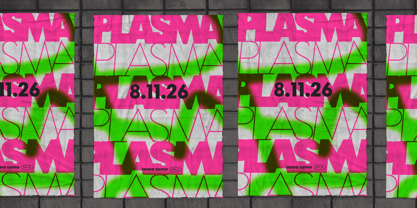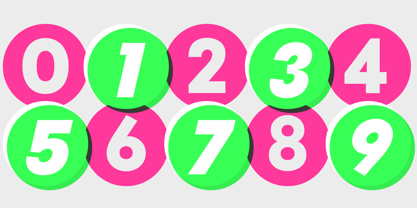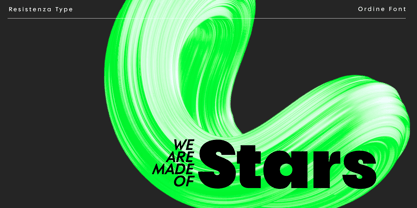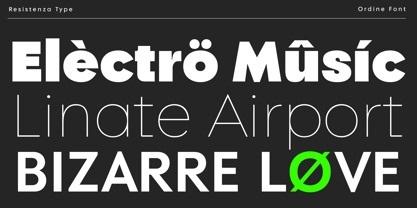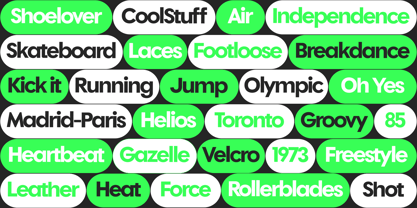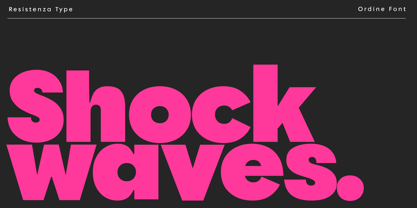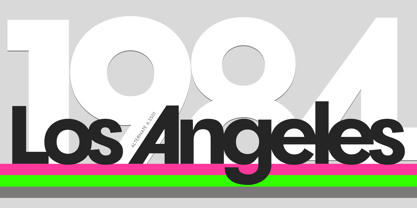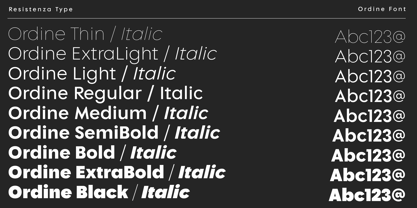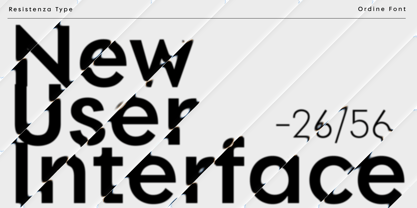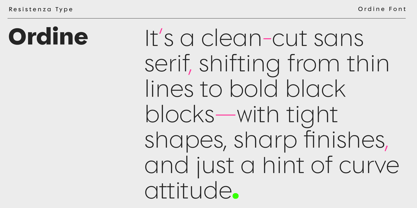
Ordine
The Ordine Font Family was designed by Giuseppe Salerno, Paco González and published by Resistenza. Ordine contains 18 styles and family package options.
A modern geometric typeface distinguished by its perfectly circular counters in letters such as o, e, and a, which establish a clean, contemporary foundation. Yet, it avoids the sterility often found in purely geometric designs through refined details—the e features a subtle horizontal bar for improved readability, while the two-story g showcases sophisticated craftsmanship. Built as a variable font, Ordine offers seamless weight interpolation and responsive versatility, with oblique variants that preserve geometric integrity while adding dynamic energy. Its consistent x-height and balanced proportions guarantee strong performance across all weights. This flexibility makes Ordine highly adaptable: lighter cuts bring elegance to editorial design, while bold styles make a commanding statement in branding, sportswear, and cultural applications. With its clean geometry, digital-first presence, and compatibility with vibrant color palettes, Ordine captures the spirit of contemporary design—projecting both innovation and reliability for brands that want to feel modern, sophisticated, and enduring.